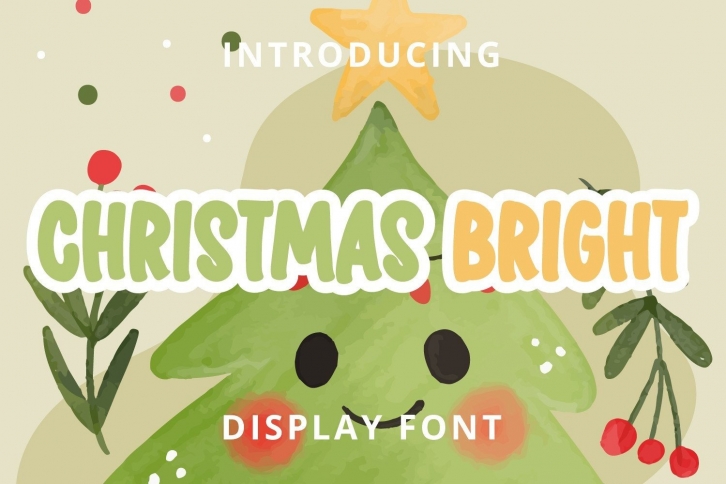
Christmas Bright is brilliant, fun, and cute display fonts . This font suitable for use in any topic that makes them stand out. It is perfect for children-themed designs, especially when combined with bright colors.